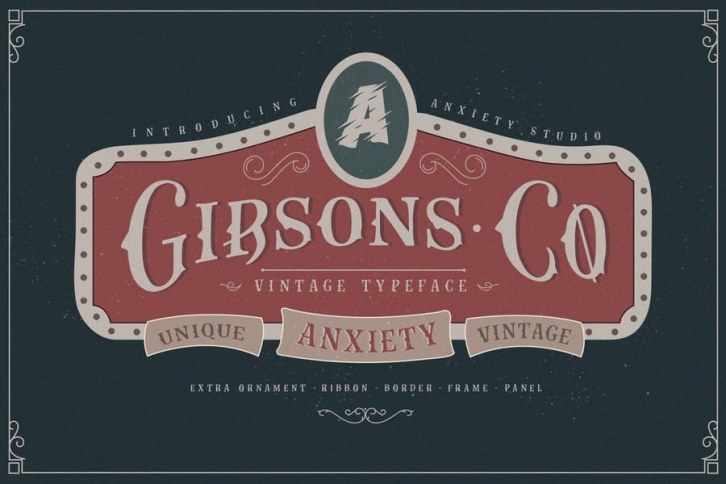
GIBSONS CO EXTRA ORNAMENT, FRAME, RIBBON, PANEL, AND LABEL VINTAGE
Gibsons Co is a beautiful font family and vintage font, that are combined into pretty package. You will see this combination more in badges logos, vintage logo and display.
Gibsons Co is a typeface classic taste ,very suitable as to make a design choice for books, magazines, packaging, branding , signage and more other creative project and extra ornaments and frame ornament. Gibsons Co, is great for any kind of display purpose from branding.And to enable the OpenType Stylistic alternates and ligatures.
Gibsons Co, a beautiful for logotype, website header, fashion design, poster, clothing apparel, quotes and will add a beautiful touch of handmade love to your projects- use it for label designs, headlines, logotypes, signage, posters, greeting cards, letterhead , logos, wedding gift and more.